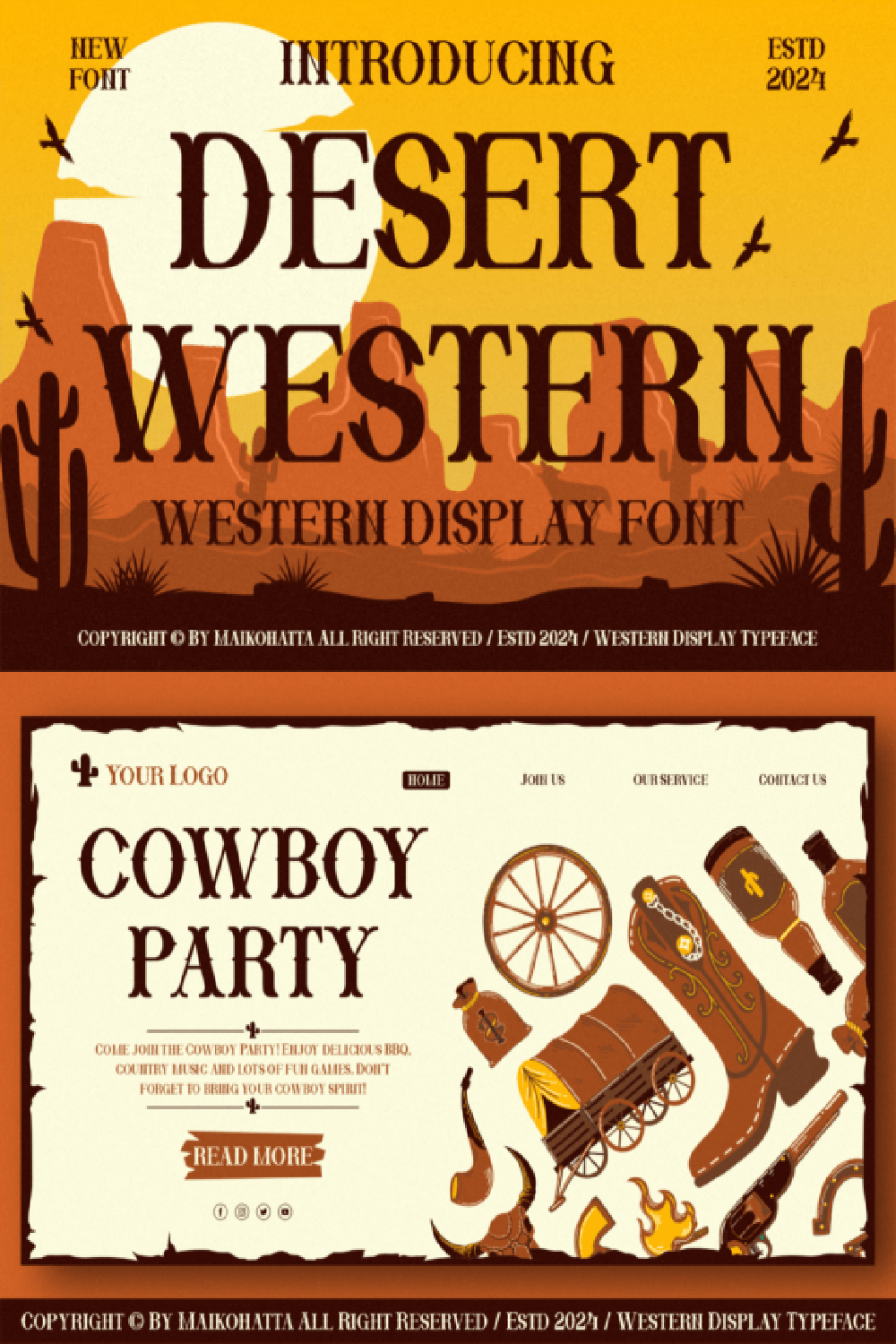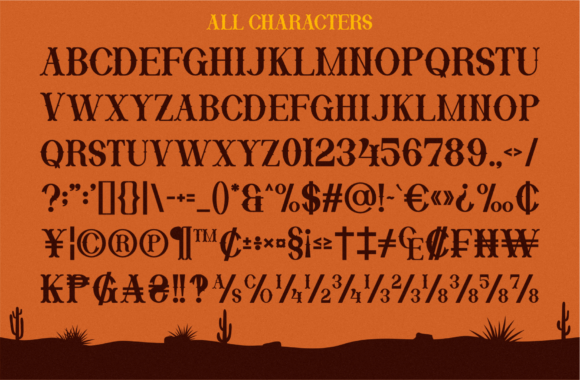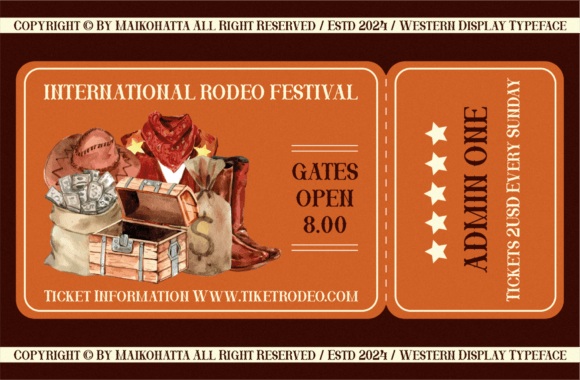
Desert Western Font
About the Desert Western Font
Add a touch of class to your work with the Desert Western Font, a truly exceptional typeface. Desert Western – Western Display: Step into the wild, dusty world of the old West! Explore rugged landscapes, dusty trails, and the iconic spirit of cowboy life. With cacti, tumbleweeds, and wide-open skies, immerse yourself in the adventure of the frontier. Saddle up for a journey through the heart of the desert, where every sunset tells a story of courage and resilience.
Desert Western’s bold, strong forms make it ideal for headlines, posters, and branding projects requiring a rugged, adventurous feel. It excels in short, impactful text settings, such as logos, titles, and short slogans. However, its highly stylized nature makes it unsuitable for body text or UI elements where readability is paramount. Long paragraphs set in this font would be difficult to read.
The font’s personality is undeniably bold and assertive, reflecting a sense of classic Western Americana. Pairing it with a clean sans-serif like Montserrat for body text creates a strong contrast, balancing the ruggedness of Desert Western with modern readability. Alternatively, a classic serif such as Garamond adds a touch of refined elegance, softening the overall aesthetic.
For a more playful approach, consider pairing it with a slightly informal script font; however, ensure the script complements the Western theme and doesn’t detract from the headline’s impact. Avoid pairing it with other highly decorative fonts to prevent visual clutter.
Desert Western Font Usage Examples
Desert Western Font Example